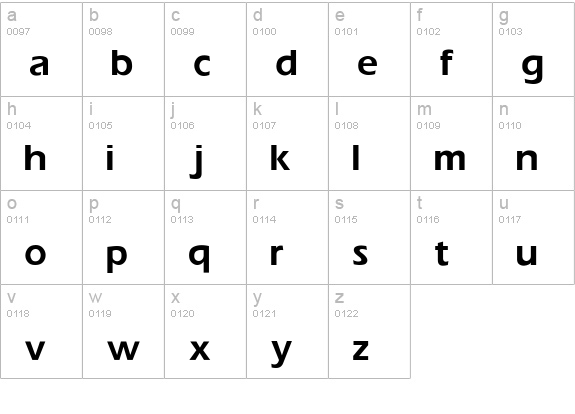
Eric Black is a maximum-weight, dramatic variant in the Eric typeface family \xE2\x80\x94 well suited to maximum-impact headlines, posters, and packaging.
Introducing Eric Black font, a sleek and modern typeface that exudes sophistication and elegance. With its bold and strong characteristics, Eric Black font commands attention and makes a statement in any design project. This versatile font is perfect for headlines, logos, branding, and more. What sets Eric Black font apart is not only its striking design but also the fact that it is available for free download at FontsMarket.com. You can easily access this premium font without any cost, making it a valuable addition to your font collection. Don't miss out on the opportunity to enhance your designs with the timeless appeal of Eric Black font. Download it today and elevate your creative projects to the next level.